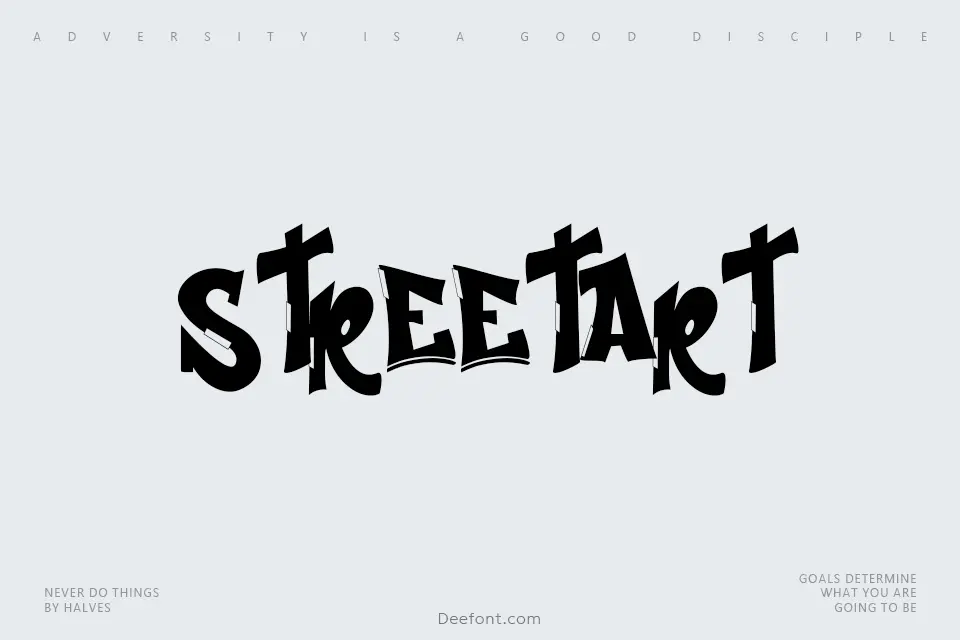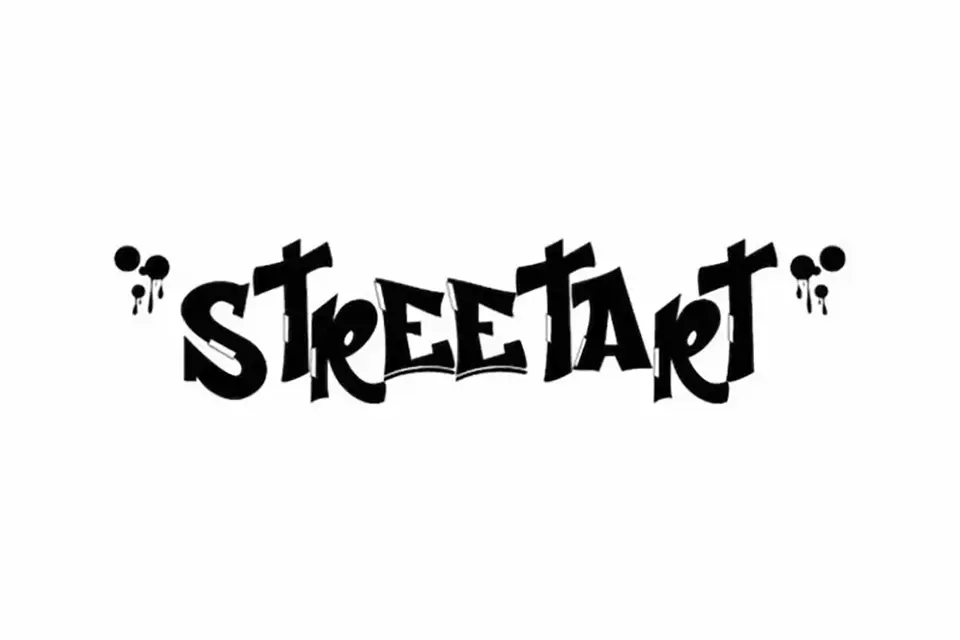
Streetart Font
The Streetart font is a creative graffiti-inspired script designed to add an urban and expressive flair to your designs. Its bold and dynamic strokes reflect the energy of street culture, making it ideal for posters, album covers, branding, and creative projects seeking a raw, modern aesthetic. This font captures the spirit of urban art and provides a unique visual impact for various contemporary applications.